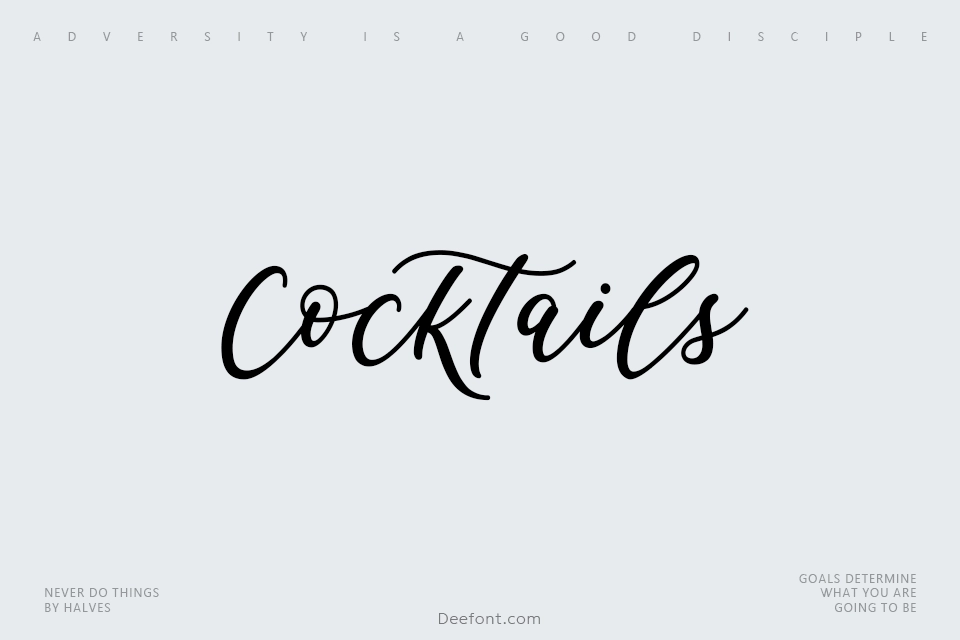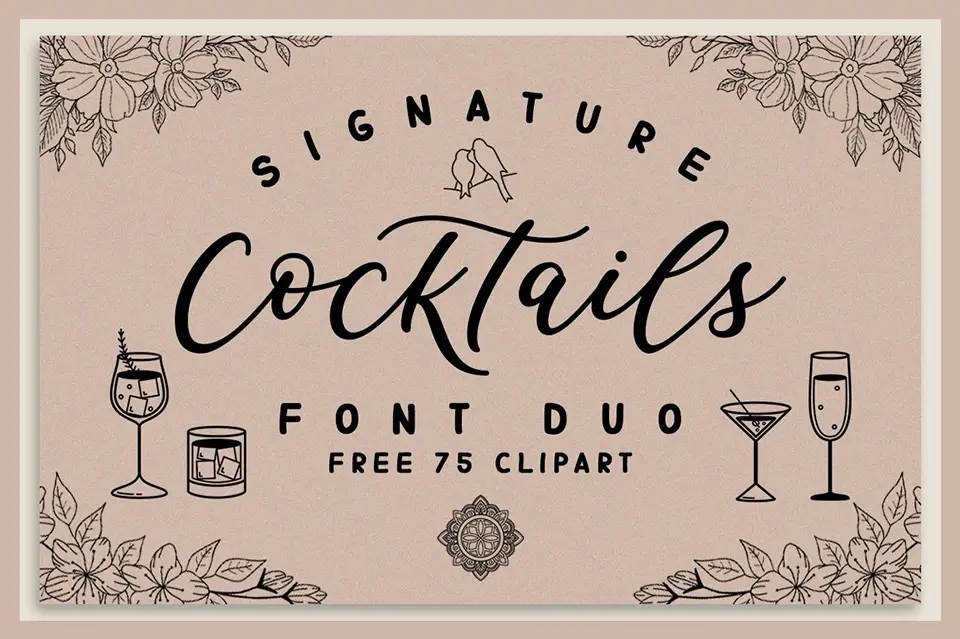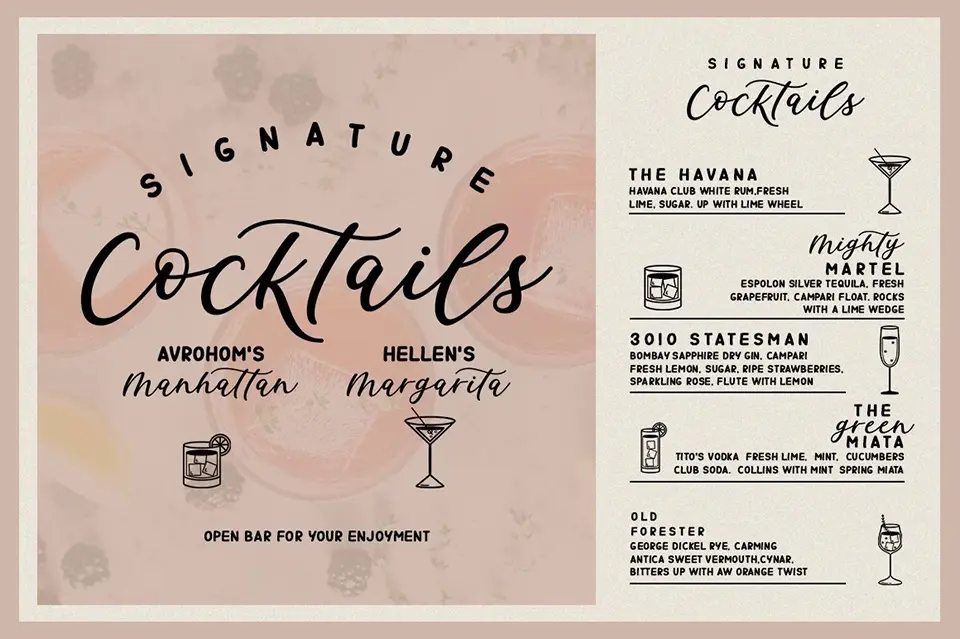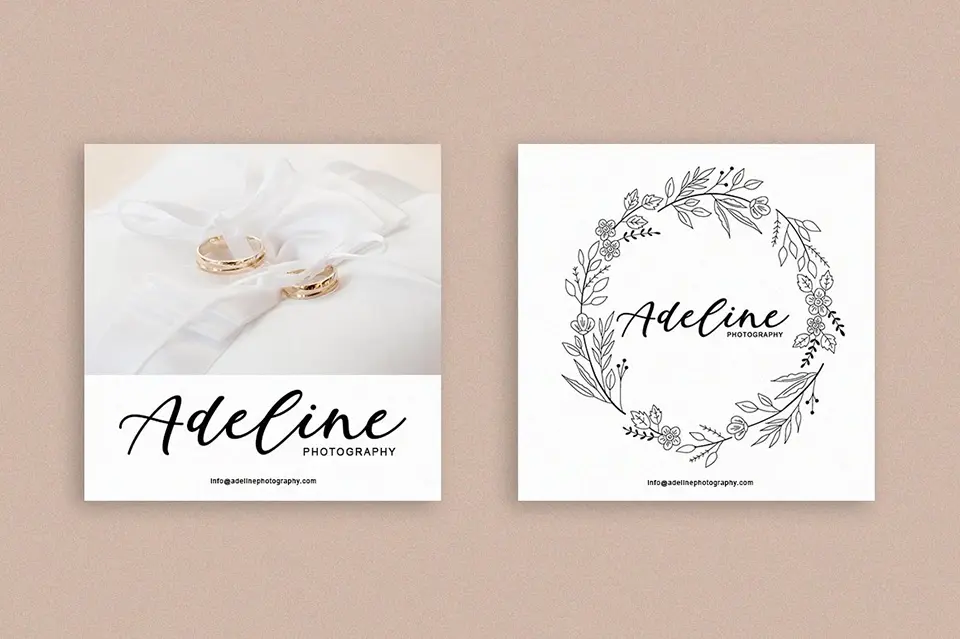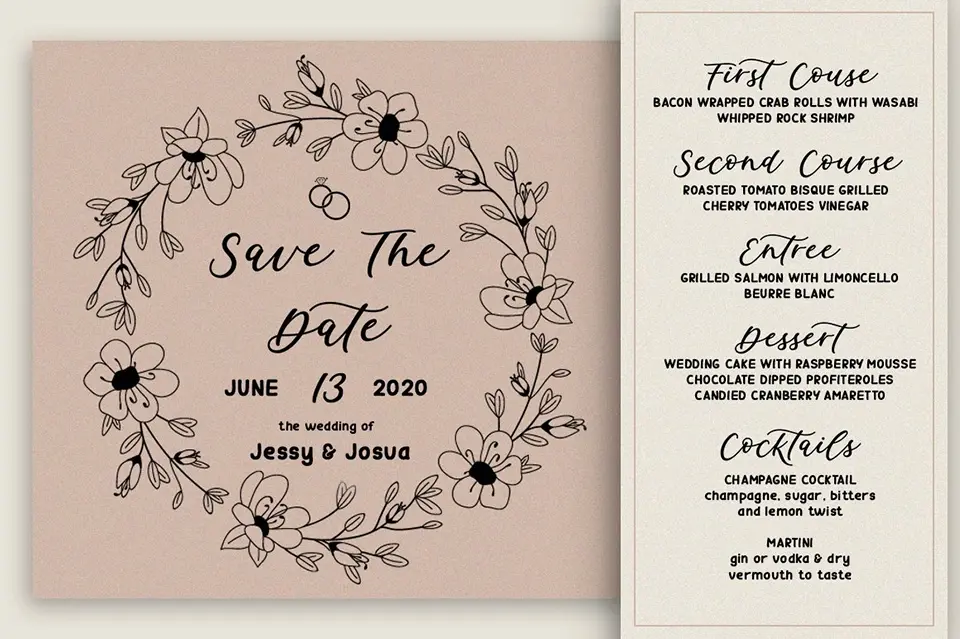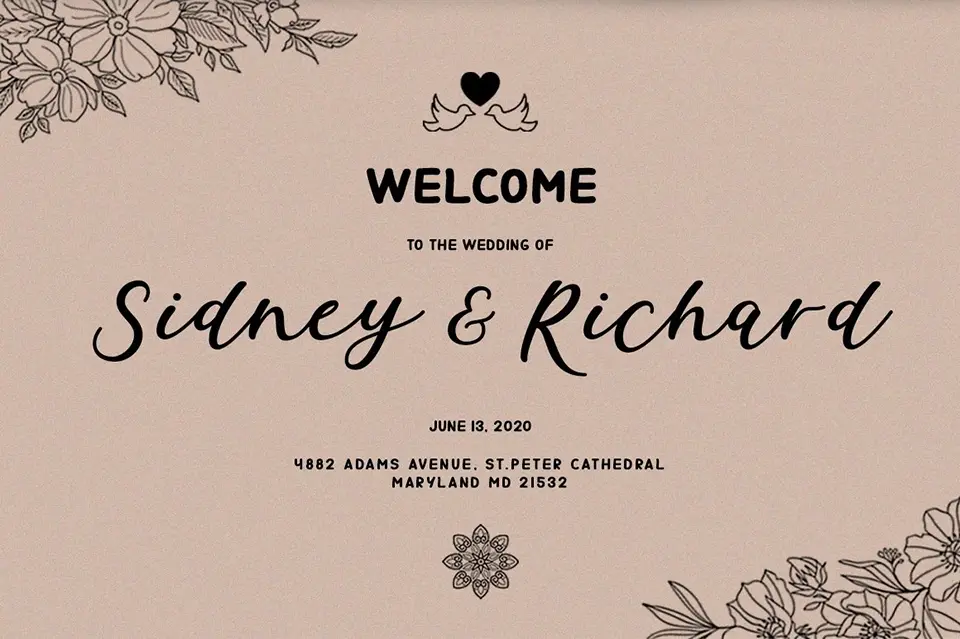
Cocktails Font
Cocktails is an elegant and sophisticated script font designed by Graphix Line Studio. This modern calligraphy typeface features a flowing, handwritten style that brings an artistic touch to any creative project. With 132 glyphs and support for 194 languages, Cocktails is ideal for invitations, logos, branding, and elegant typography applications. The font’s smooth, pen-like strokes create a luxurious aesthetic perfect for sophisticated designs, wedding materials, event branding, and premium packaging projects.online-fonts+2​
Designed by:Aldi Raya Pradipta (Graphix Line Studio)